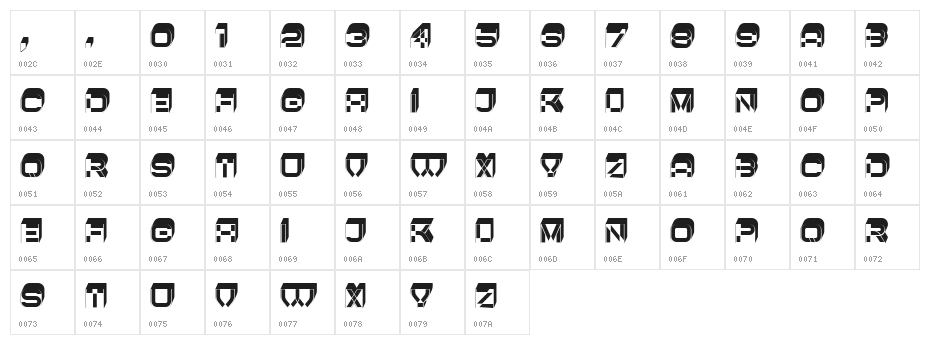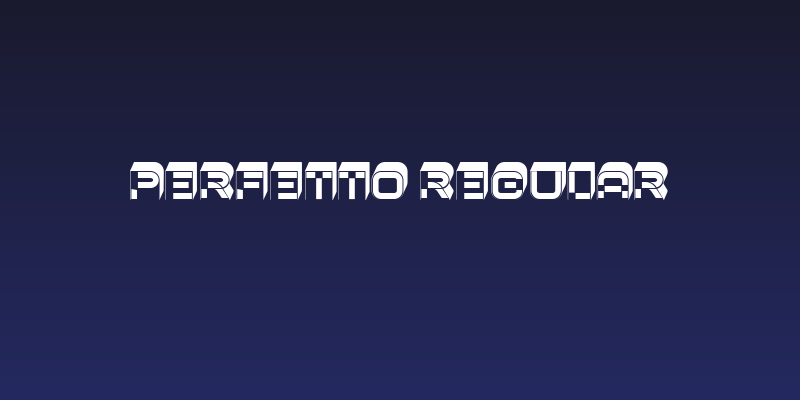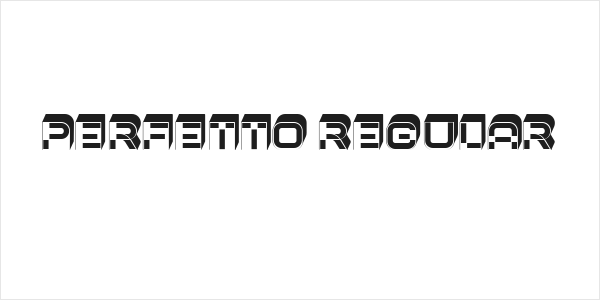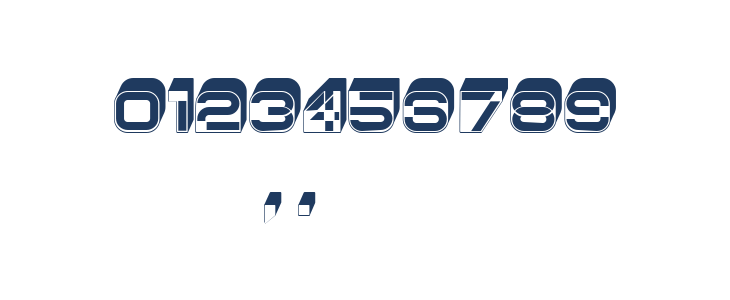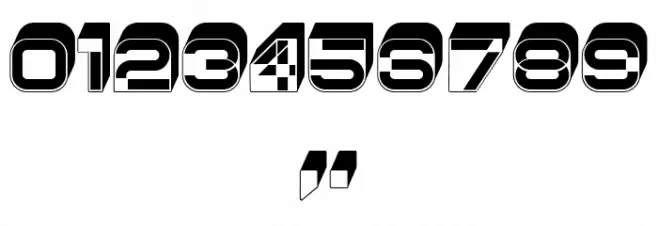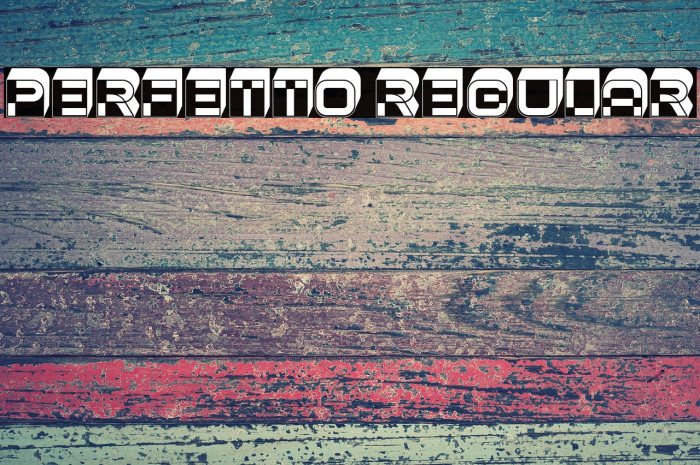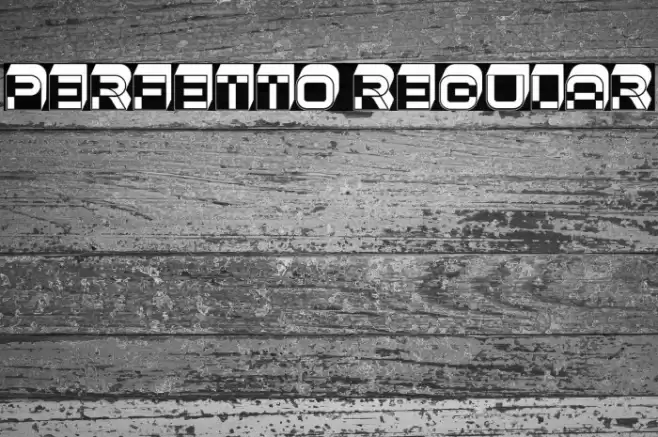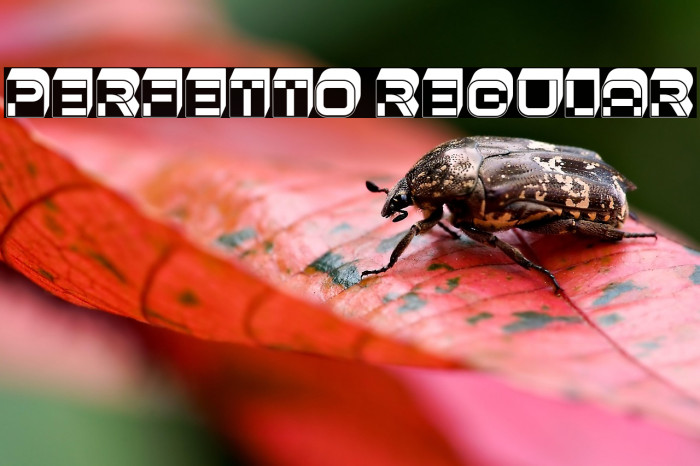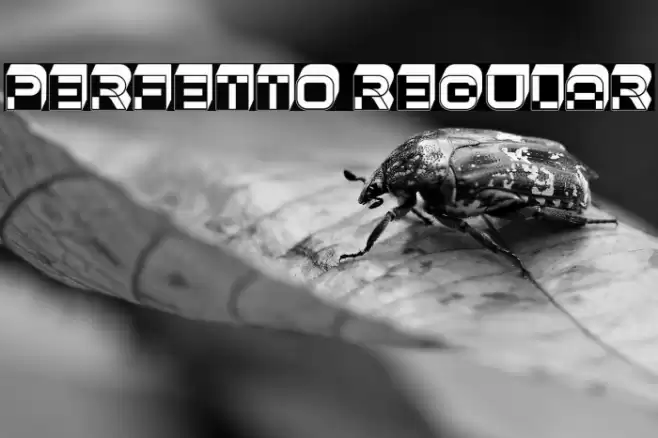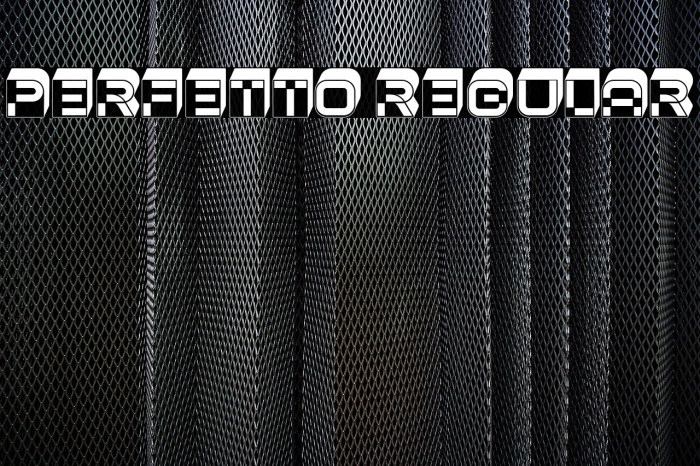
Perfetto Regular Font
Perfetto Regular Description
This font features a bold, geometric design with a modern and futuristic aesthetic. Each character is constructed with a combination of solid and outlined shapes, creating a dynamic and visually striking appearance. The use of negative space and contrasting black and white elements adds depth and dimension to the letters. The font's unique style makes it stand out, with each character having a distinct, blocky form that is both playful and sophisticated. The numbers and punctuation marks follow the same design principles, ensuring consistency throughout the typeface.